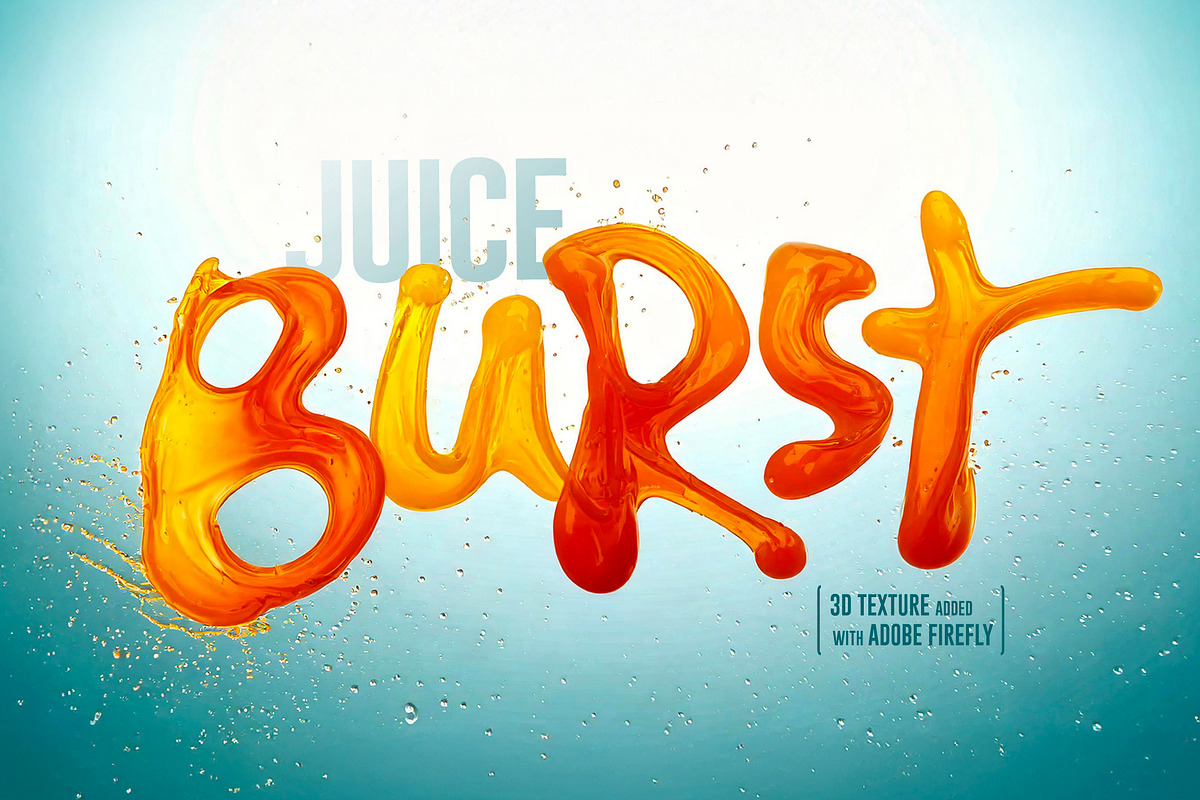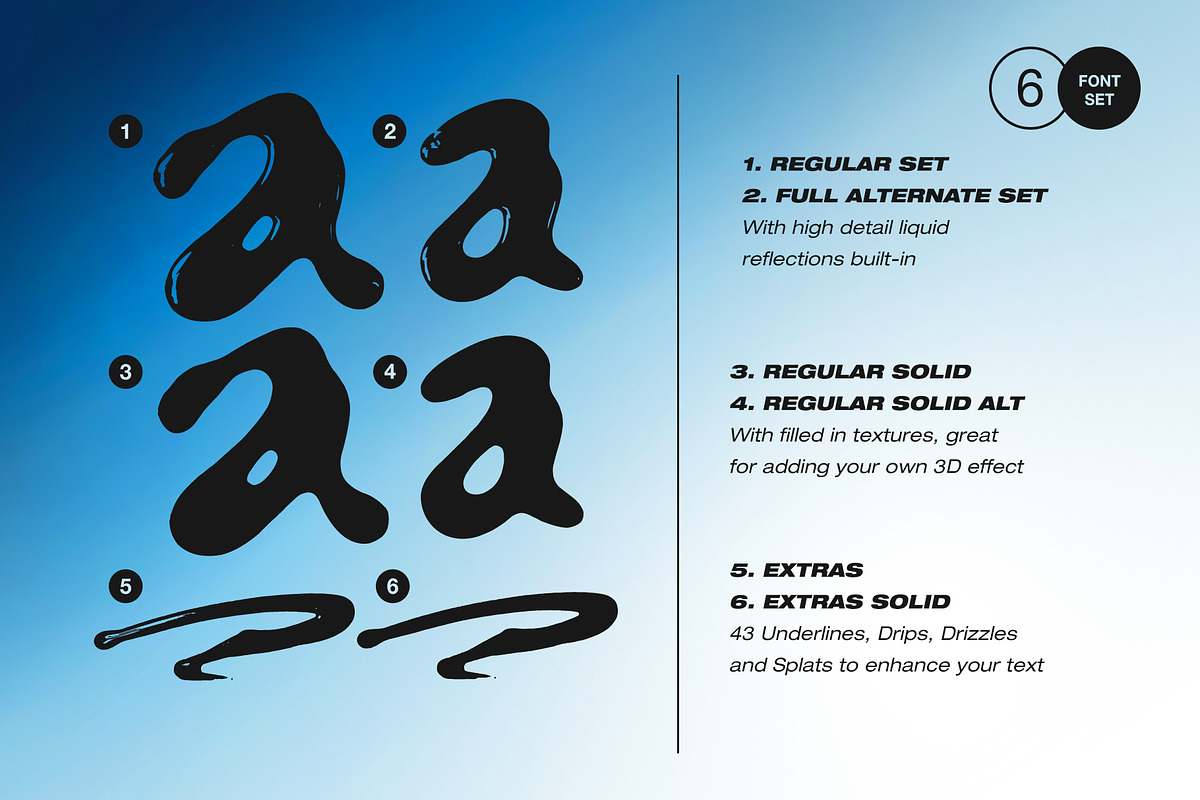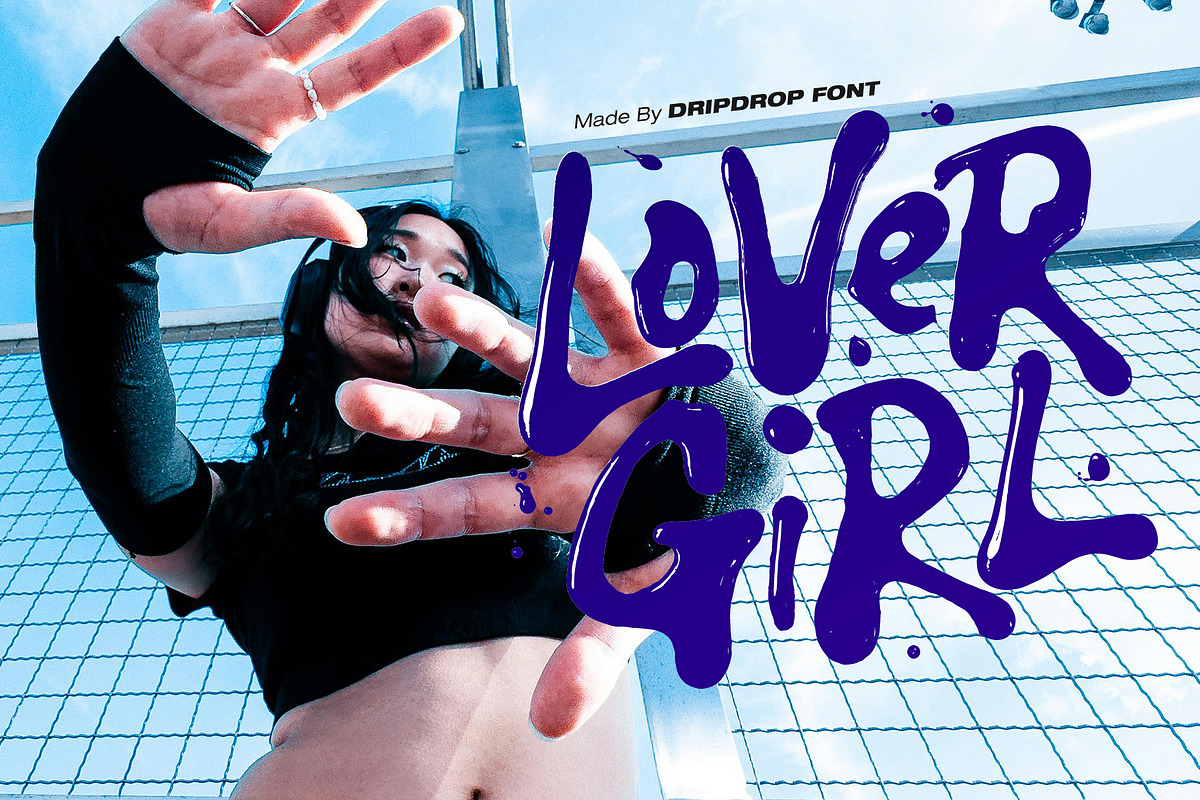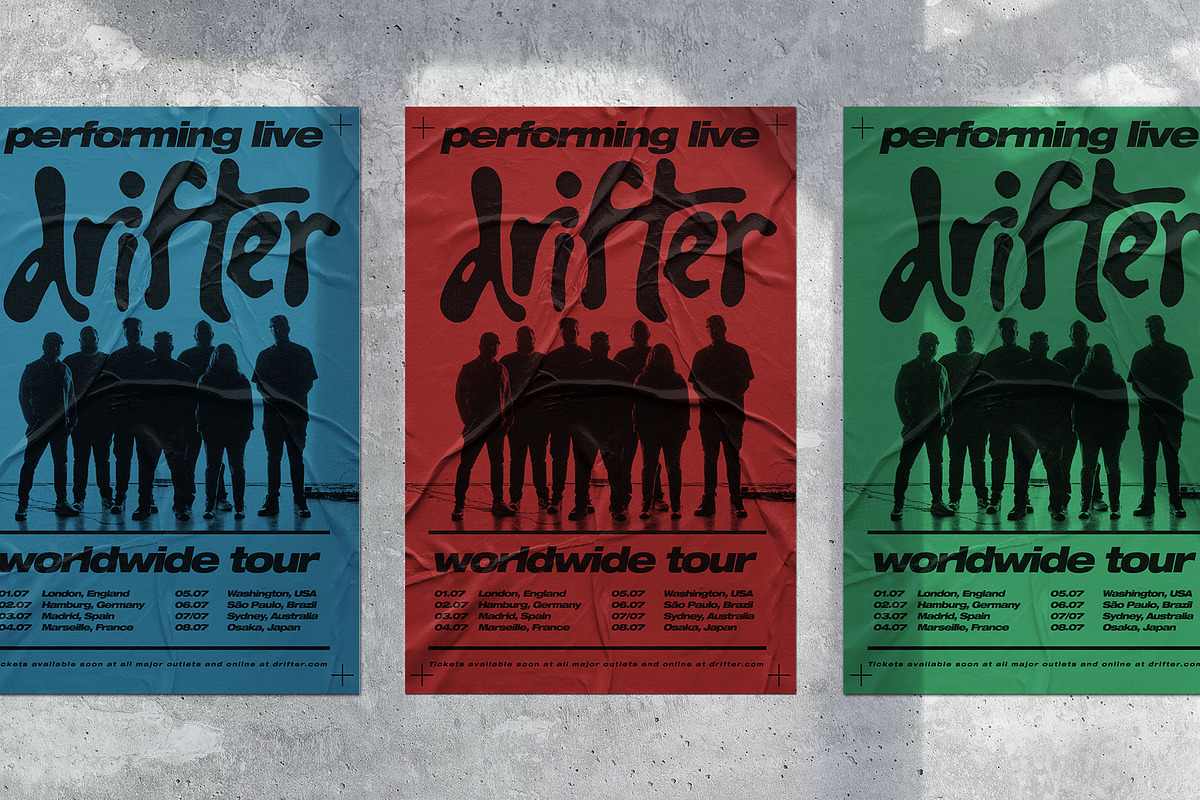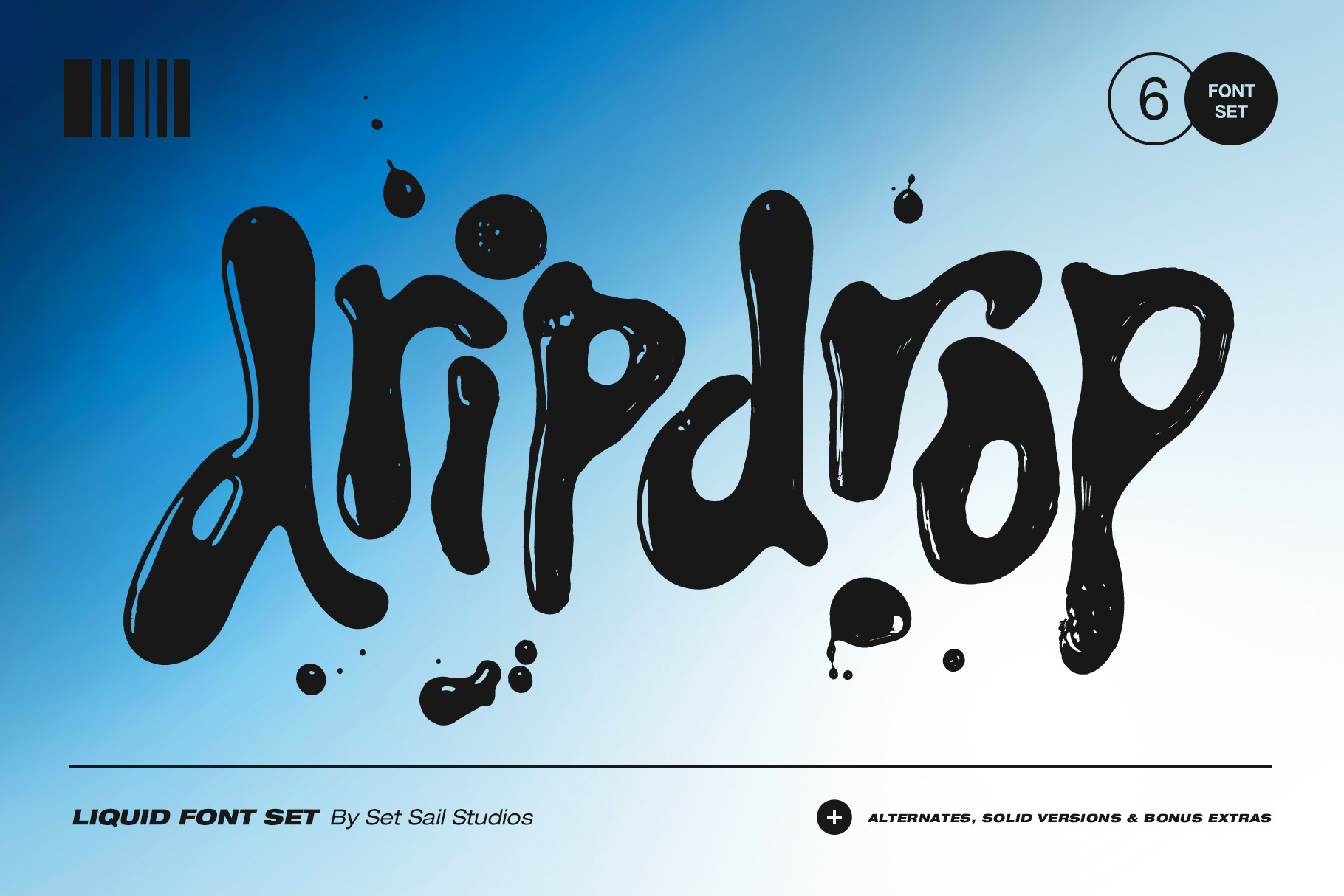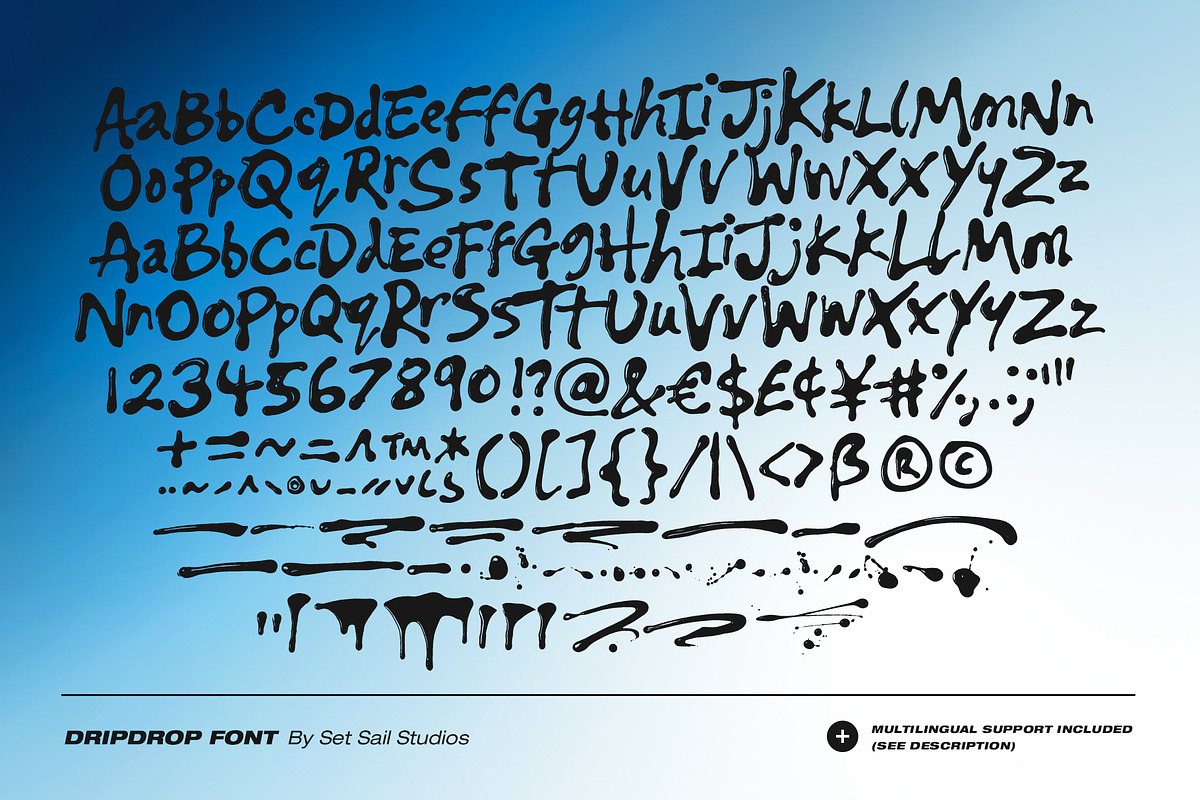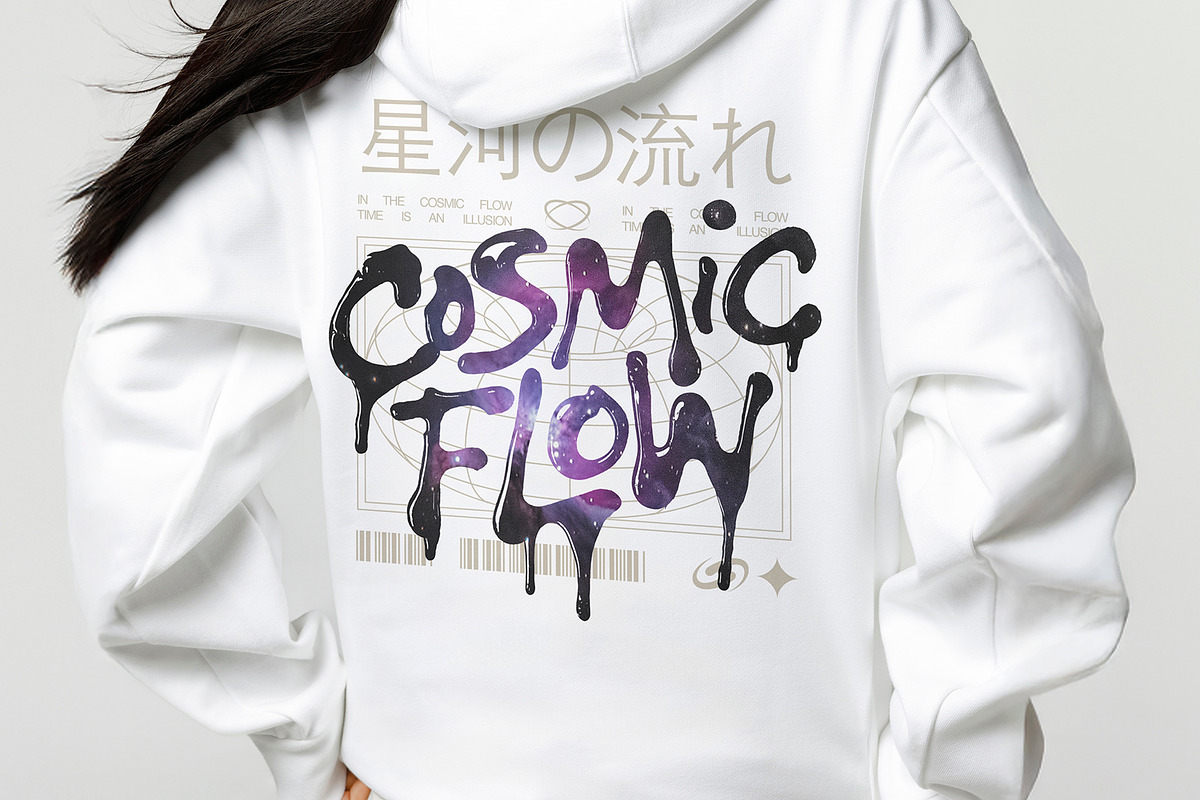
Dripdrop Liquid Font Set
Make a splash with the Dripdrop Liquid Font Set! Crafted by hand with real squirts of liquid ink (yes, it was messy!), this set of 6 fonts captures the spontaneous beauty of drips, drizzles and splats, giving every letter a personality of its own. It's a display font ideal for edgy designs, Y2K inspired graphics, rebellious branding, or anything that needs a touch of the unpredictable.
Dripdrop Font • A liquid font with built-in realistic light reflections. Hand made with real ink on paper! Includes a full set of uppercase, lowercase, numerals and punctuation.
Dripdrop Alt Font • This is a second version of the Dripdrop font, with a completely new set of upper & lowercase characters. If you wanted to avoid letters looking the same each time to recreate a custom-made style, or try a different word shape, simply switch to this font for an additional layout option.
Dripdrop Extras Font • A set of 43 underlines, drips, drizzles and splats to enhance your DripDrop text. Simply install this as it's own font, and type any A-W or a-t letter in this font to generate the extras.
Dripdrop Solid, Dripdrop Alt Solid & Dripdrop Extras Solid • These 3 fonts are the same as above however they have solid textures with no light reflections. Great if you need something a bit more subtle, or for adding your own textures (ideal for 3D rendering!)